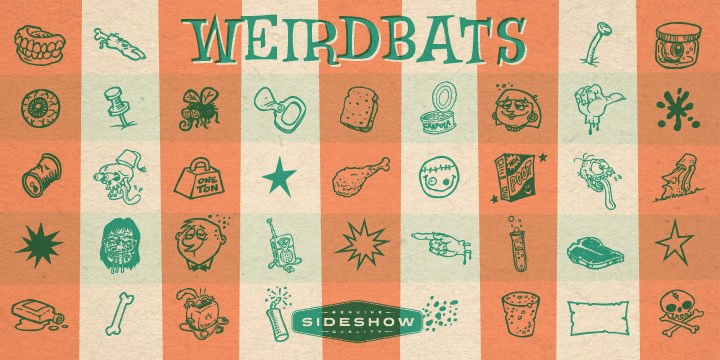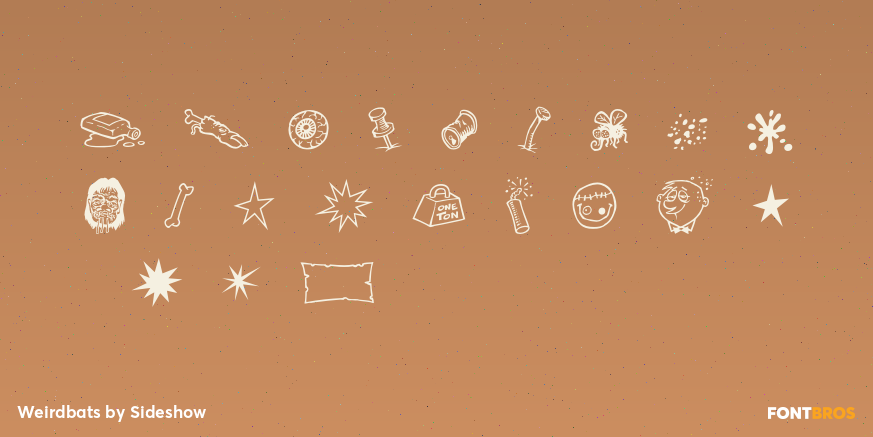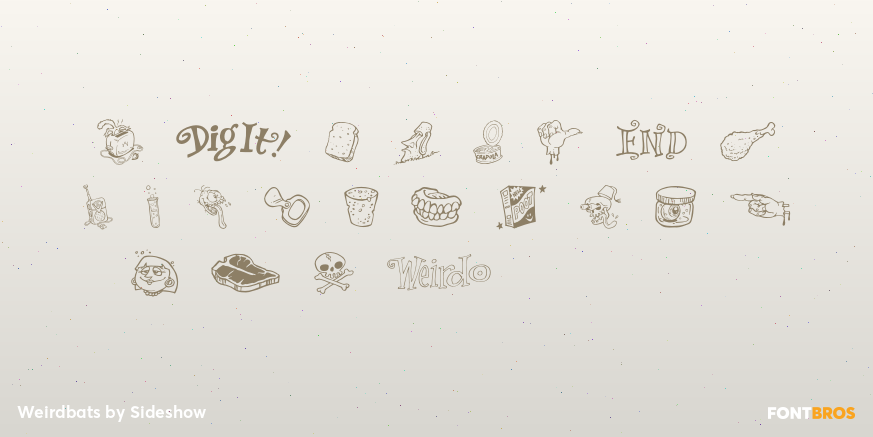
Weirdbats
Font Family by Sideshow
Buy NowWeird Bats are the perfect complement to the Weird Bill family of fonts, Squid's tribute to the wacky Weird-Ohs! art of Bill Campbell. Bill's series of goofy monster model kits in the early 1960s was such a hit that it has been reissued twice! Weird bats will give you hours of pleasure with eyeballs, severed fingers, raw meat, drunken suburbanites and more!